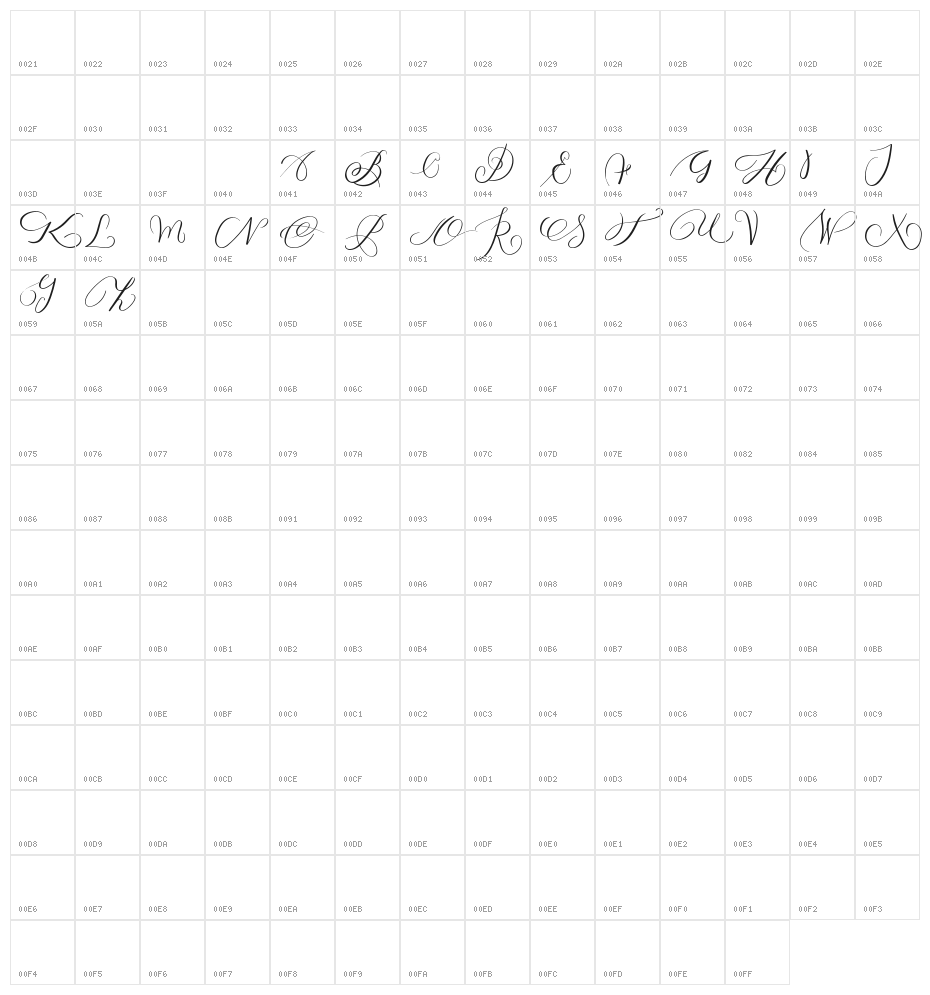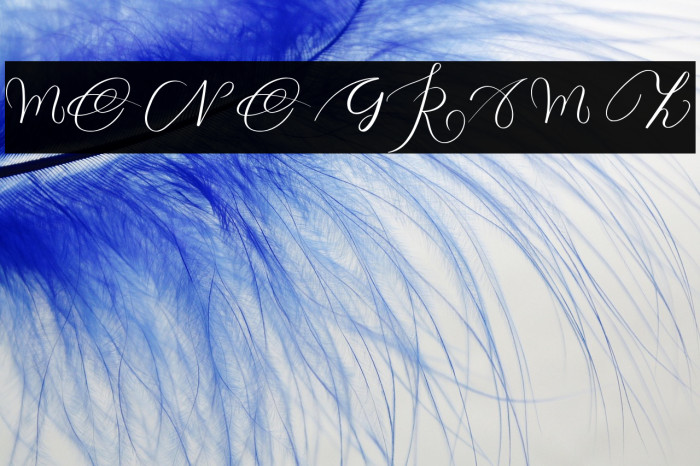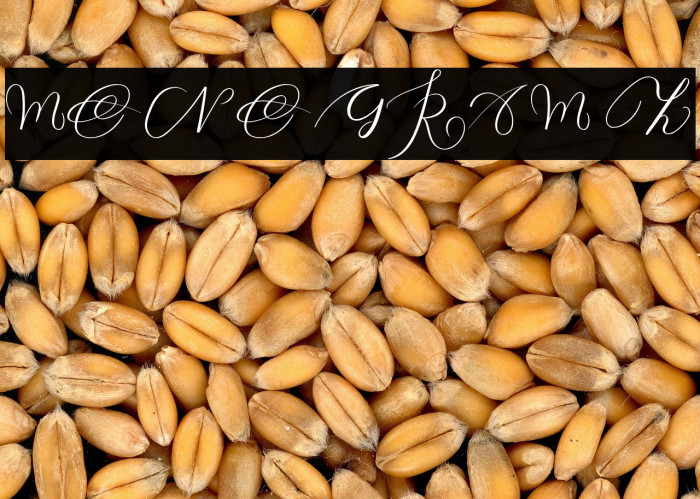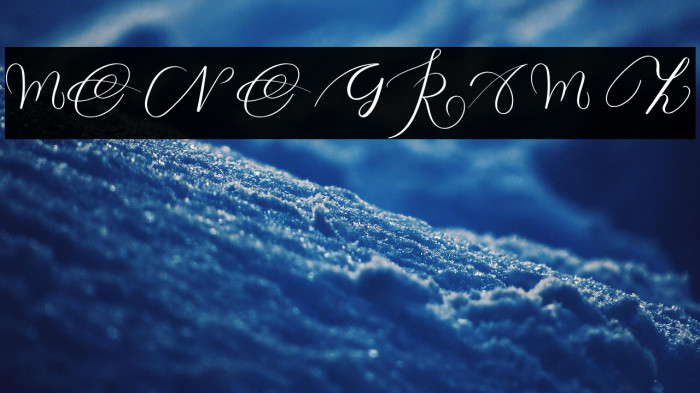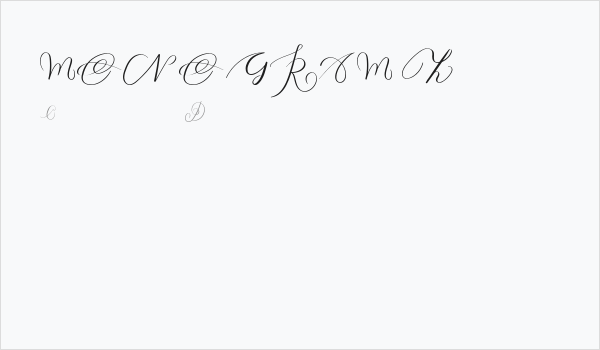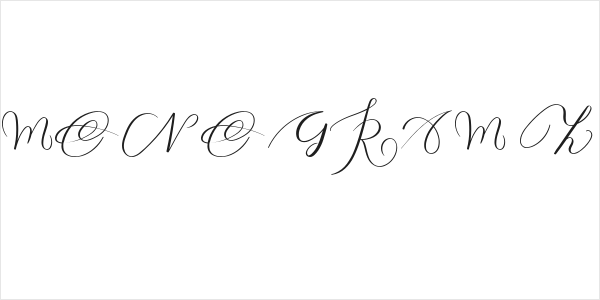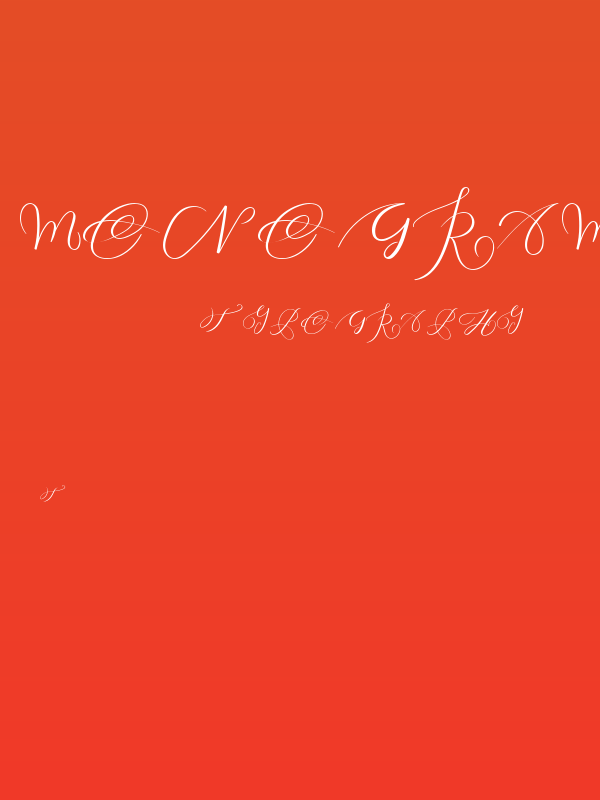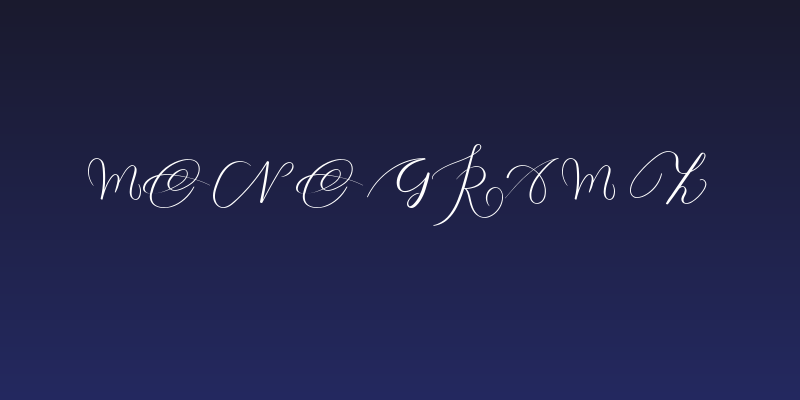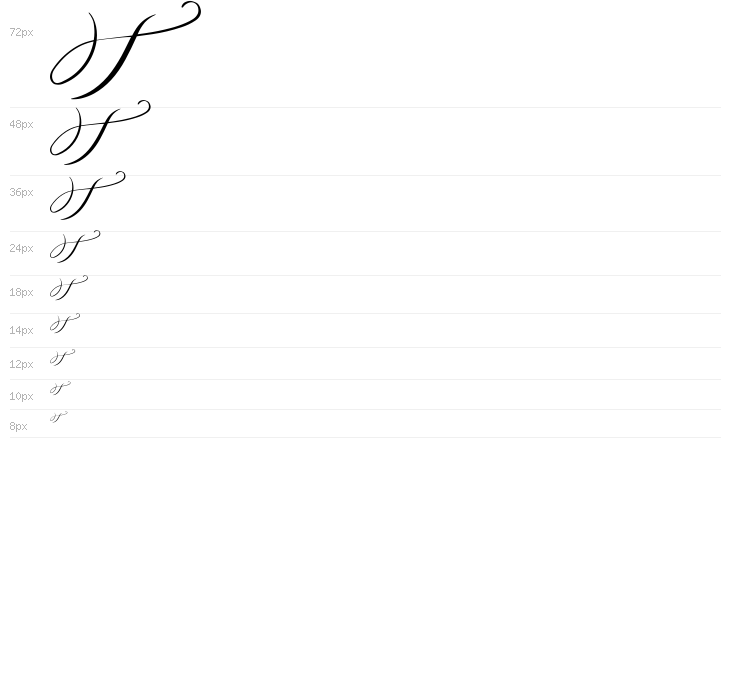
MONOGRAM Z Font
MONOGRAM Z Description
This elegant script font features intricate, flowing letterforms that exude sophistication and grace. Each character is meticulously crafted with elaborate swirls and loops, creating a sense of movement and fluidity. The uppercase letters are particularly ornate, with extended flourishes that enhance their decorative appeal. The lowercase letters maintain a consistent style, complementing the uppercase with their own subtle embellishments. This font is perfect for creating a luxurious and refined aesthetic, making it ideal for formal invitations, branding, and high-end product packaging. Its delicate strokes and artistic flair make it a standout choice for projects that require a touch of elegance and class.
| Use Case | Logos, Invitations, Branding |
| Proposed Projects | Ideal for wedding invitations, luxury branding, and high-end product packaging. |